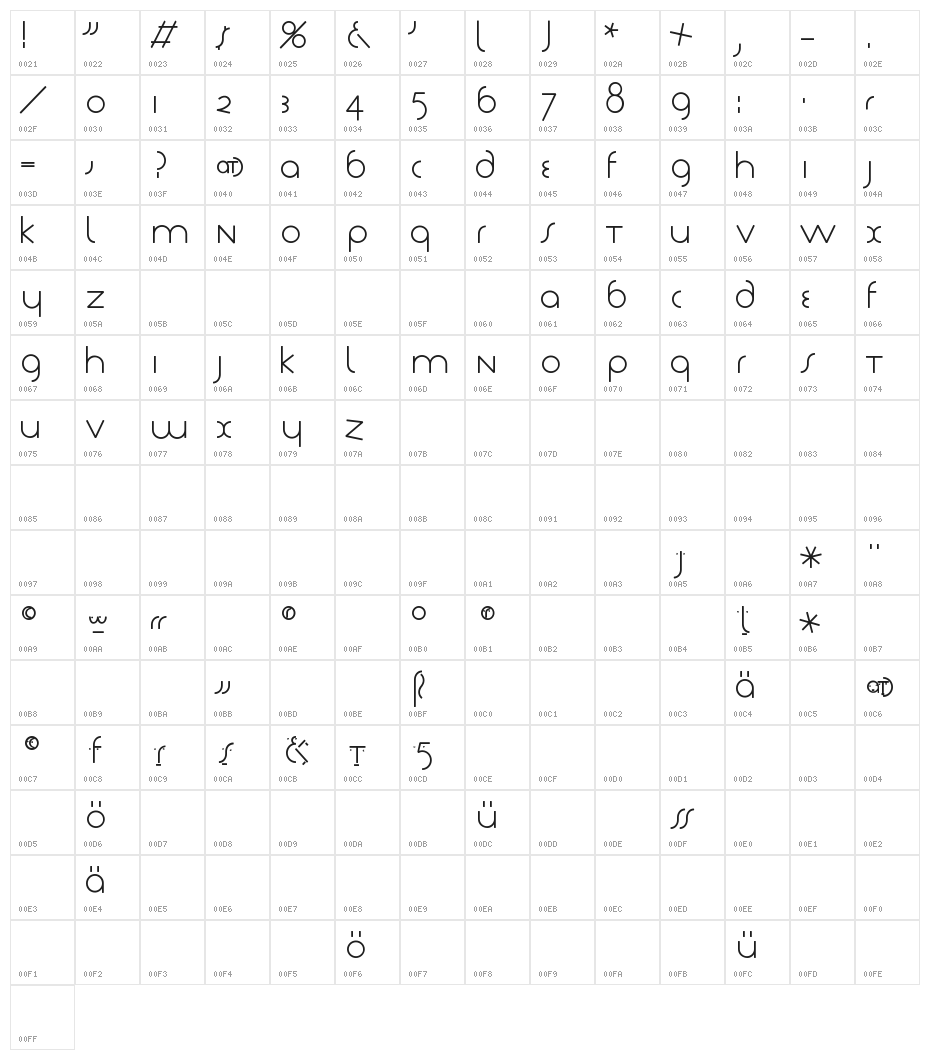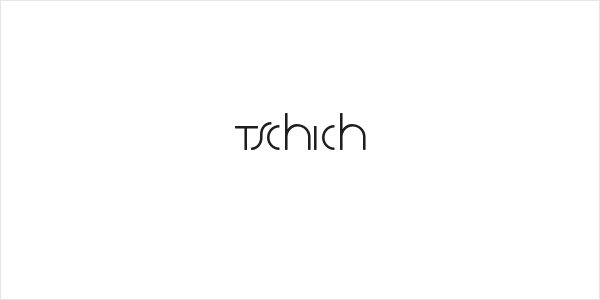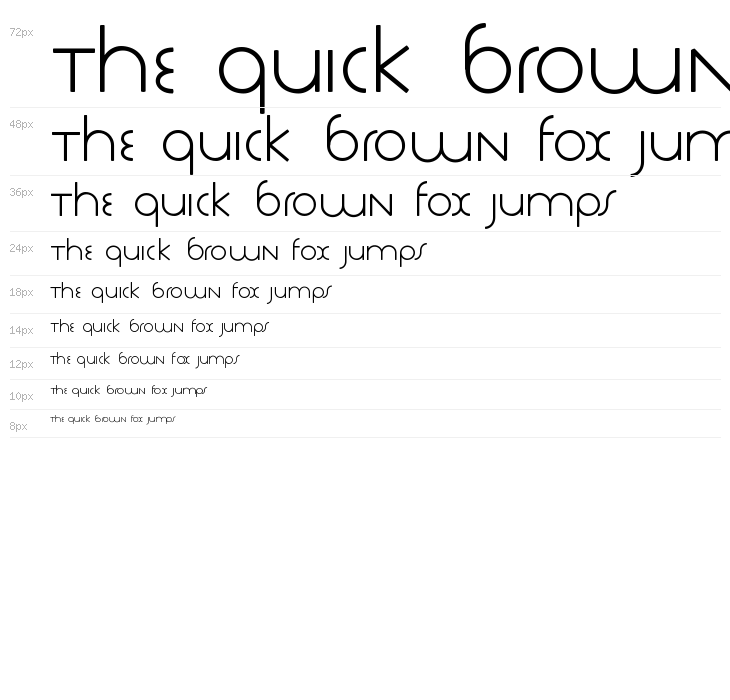
Tschich Font
Tschich Description
This font features a modern, geometric design with clean, rounded edges and a minimalist aesthetic. The characters are uniform in width, giving it a monospaced appearance, though it is not strictly monospaced. The lowercase letters have a consistent height, and the uppercase letters are slightly taller, maintaining a harmonious balance. The numerals are distinct and easy to read, with a similar geometric style. Special characters are well-integrated, adding to the font's versatility. The overall look is sleek and contemporary, making it suitable for a variety of digital and print applications.
| Proposed Projects | Ideal for tech branding, modern websites, digital interfaces, and minimalist print designs. |